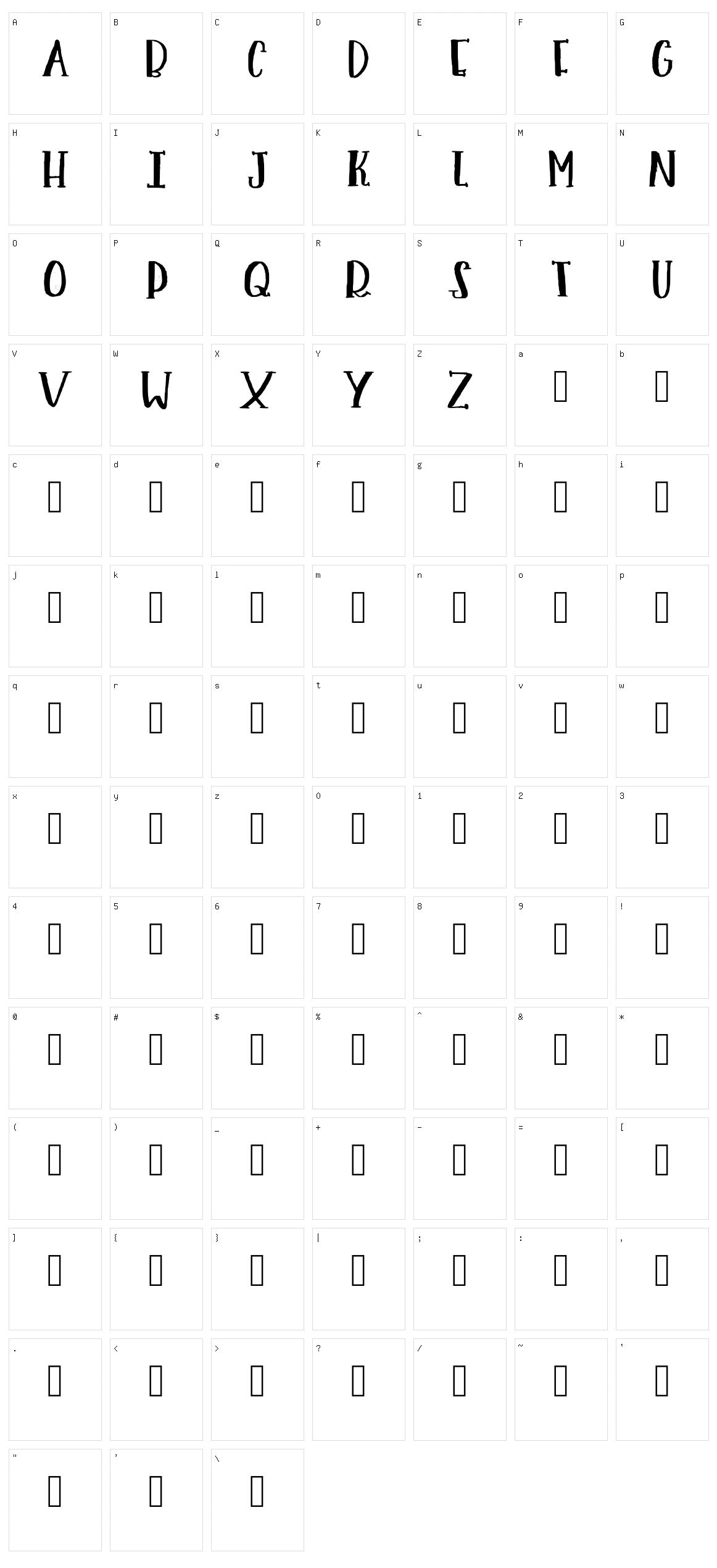
Hey Guys! Umaima is a playful funky font that captures the cute side of the world.After Purchasing, This font could be used for making a logo,pamphlets and kids page. A demo of the regular version is included for personal use. Full version and 3d version can be purcahsed for personal use!